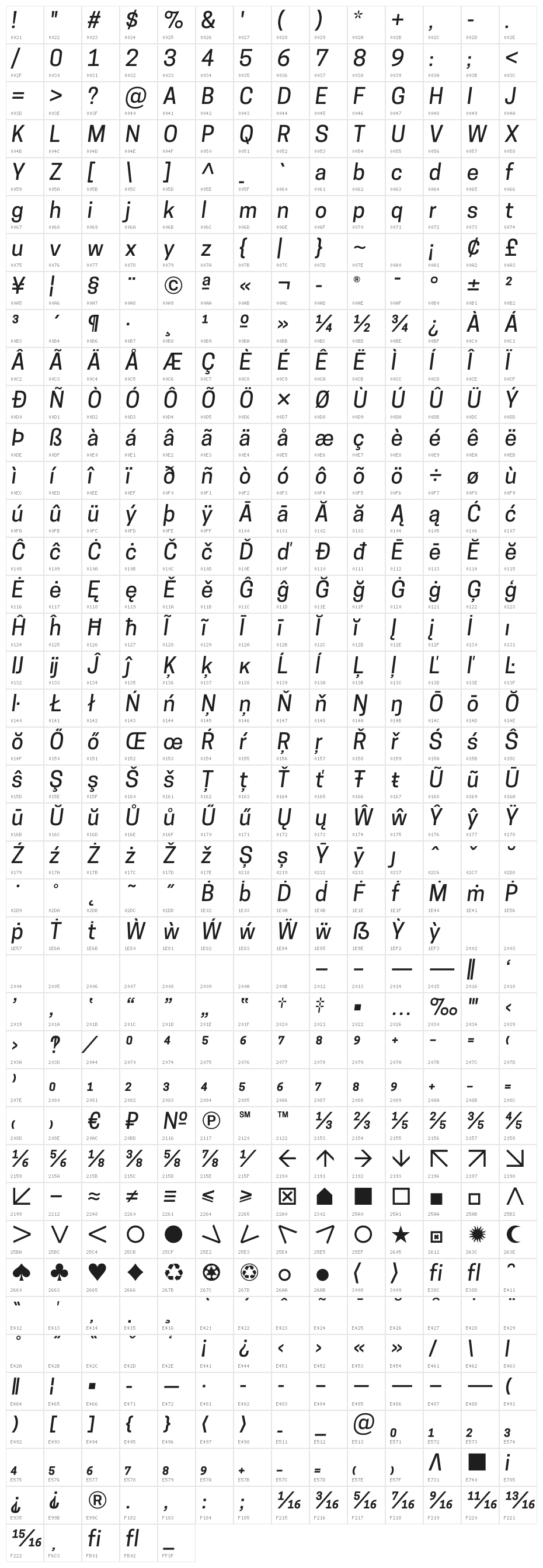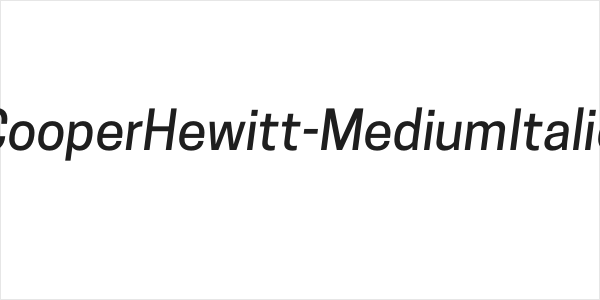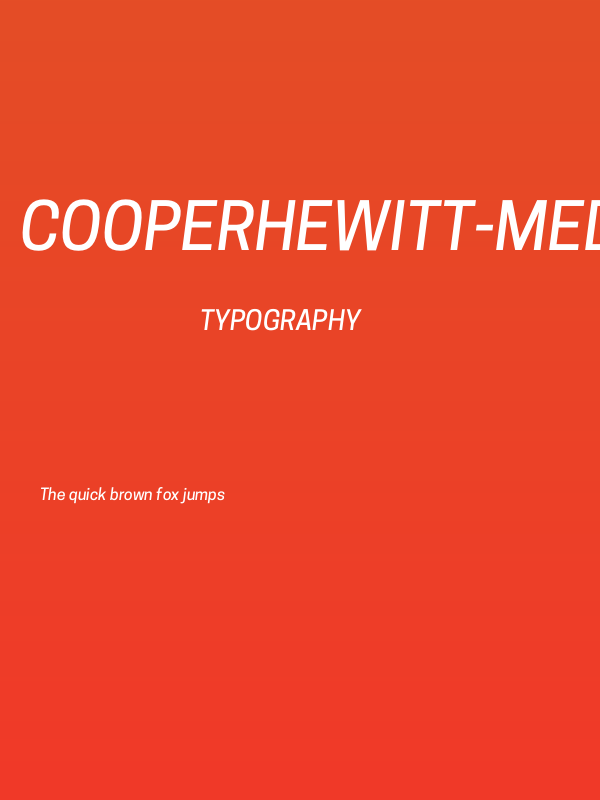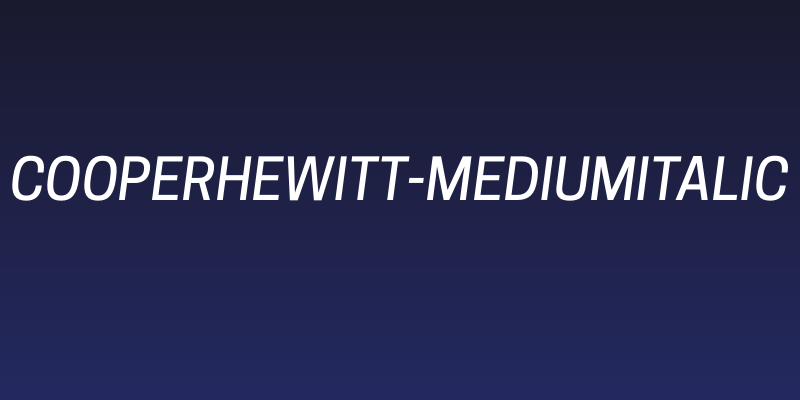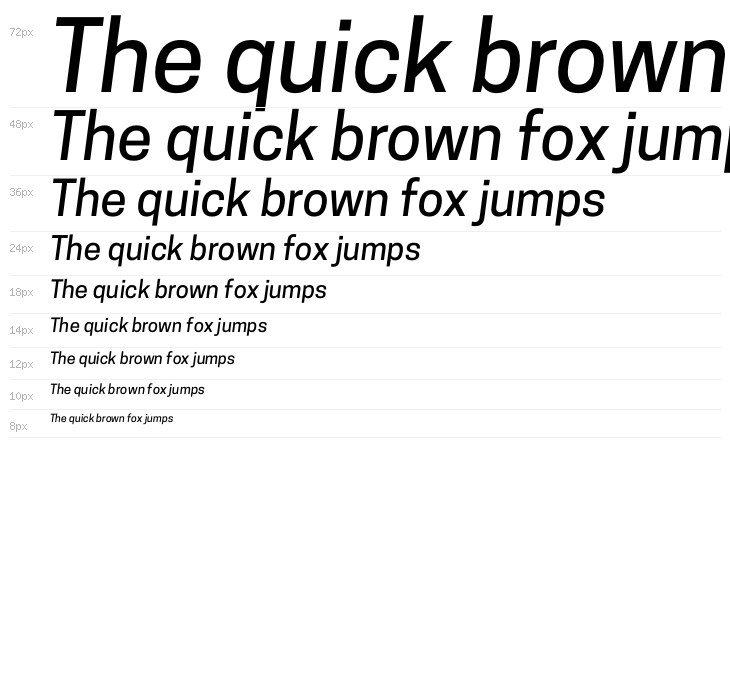
CooperHewitt-MediumItalic Font
CooperHewitt-MediumItalic Description
This font features a sleek, modern design with a slight italic slant, giving it a dynamic and forward-moving appearance. The characters are clean and sans-serif, providing a contemporary and professional look. The medium weight offers a balanced presence, making it suitable for various applications. The font maintains a consistent stroke width, contributing to its modern aesthetic. The character spacing is normal, ensuring readability while maintaining a compact form. This style is versatile, suitable for both digital and print media, and can be used effectively in branding, advertising, and editorial design.